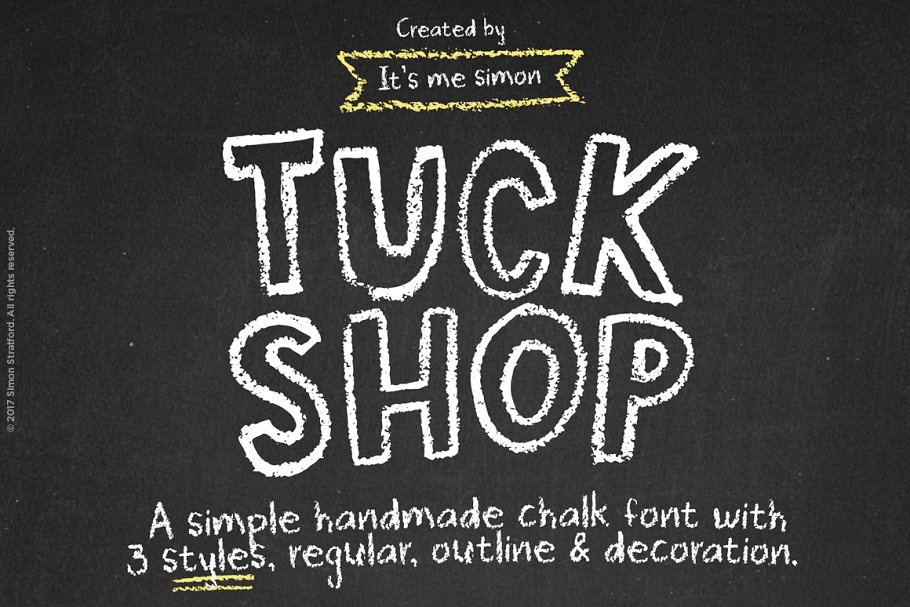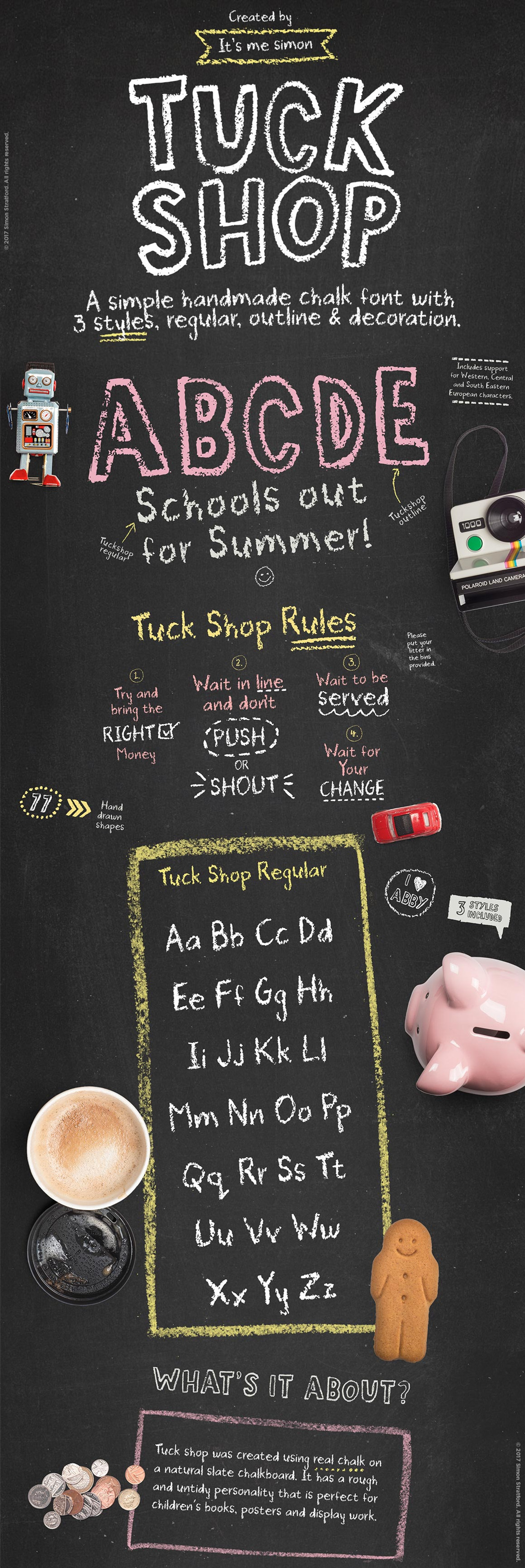
Display font Chalk board Tuck Shop
Tuck Shop Font is perfect for vintage retail branding, nostalgic storefront signage, artisanal food packaging, classic diner menus, retro advertising campaigns, confectionery branding, old-school web typography, traditional bakery materials, and heritage brand communications. This delightful typeface works exceptionally well in both digital and print environments where charm and timeless appeal are essential design elements.
What makes Tuck Shop Font so exciting is its authentic connection to traditional corner shop aesthetics and mid-century commercial lettering that instantly evokes feelings of nostalgia and community warmth. The font features beautifully crafted letterforms with vintage proportions, classic curves, and carefully balanced spacing that captures the essence of neighborhood commerce and friendly service. Its approachable character and timeless design make it perfect for brands seeking to establish trust, heritage, and personal connection with their customers.
The Tuck Shop Font family includes multiple weight variations from light to bold, along with decorative alternates and vintage-inspired ornamental elements. Each style maintains the typeface's classic charm while offering comprehensive language support, traditional numerals, period-appropriate punctuation, and special characters designed to enhance authentic vintage communications.
This exceptional typeface represents the perfect blend of historical authenticity and contemporary functionality. Whether you're developing heritage food brand identities, creating nostalgic retail experiences, or designing community-focused marketing materials, Tuck Shop Font Free Download provides the genuine warmth and reliability needed to connect with audiences who value tradition and quality. The font's classic appeal makes it particularly effective for local businesses, artisanal producers, specialty retailers, and brands celebrating craftsmanship.
The carefully preserved vintage characteristics and optimized readability in Tuck Shop Font ensure both aesthetic authenticity and practical performance across all applications. Its versatile nature allows it to work beautifully in both large display settings where its character shines and smaller text applications where its friendly legibility maintains clear communication with customers.